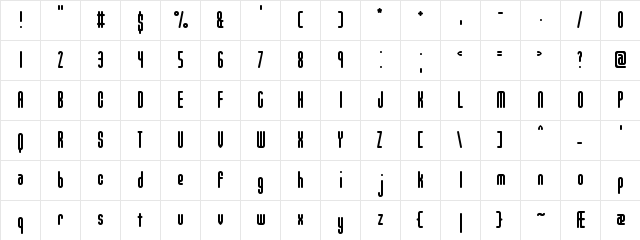
Unanimous Inverted BRK Regular
| Foundry | ƎIGMA FONTS |
| Designer | ƎIGMA FONTS - Brian Kent |
Design Context for Unanimous Inverted BRK Typeface
Unanimous Inverted BRK is a composed and adaptable typeface that performs quietly and consistently across a wide range of design contexts.